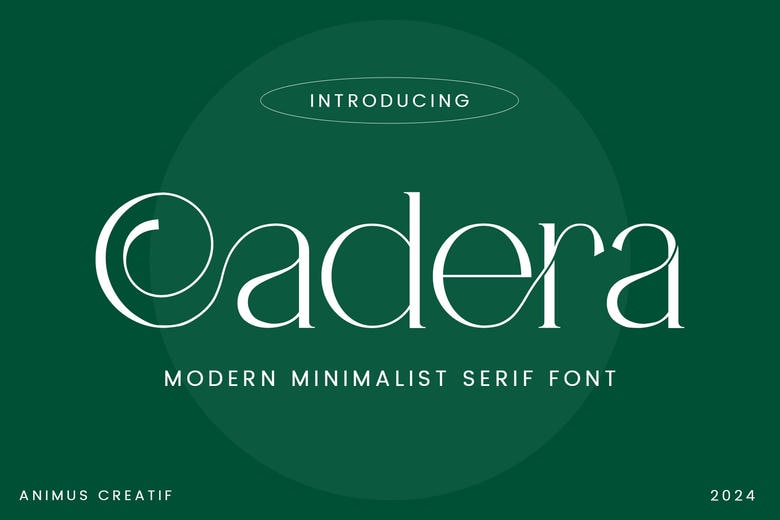
Cadera Font
Cadera is a contemporary serif font. The Cadera typeface is characterized by the dramatic contrast, where the hairlines are razor-thin, with thick and commanding stems that cannot go unnoticed on any page or screen. The difference between the Cadera font and other similar fonts is one of originality in the way it has eliminated the unwanted clutter and added amazing and sweeping curves and ligatures which appear not to be the usual dead characters but a piece of flowing art.
Consider the premium fashion magazine cover using this Cadera typeface the sharp serifs and elegant descenders may dance around the high-resolution photography. It is the ideal one to use in luxurious branding a good look that is sophisticated as used in jewelry logos, artisanal perfume packaging or the identification of a high-end architecture firm.
In terms of matching, this font performs best when paired with a simple, geometrical, nonserif in body text so the display attributes of Cadera can shine through. This font is a quiet confidence and eternal sense of style whether you are creating a smooth wine label or minimalist wedding invitation.
Cadera Serif Font